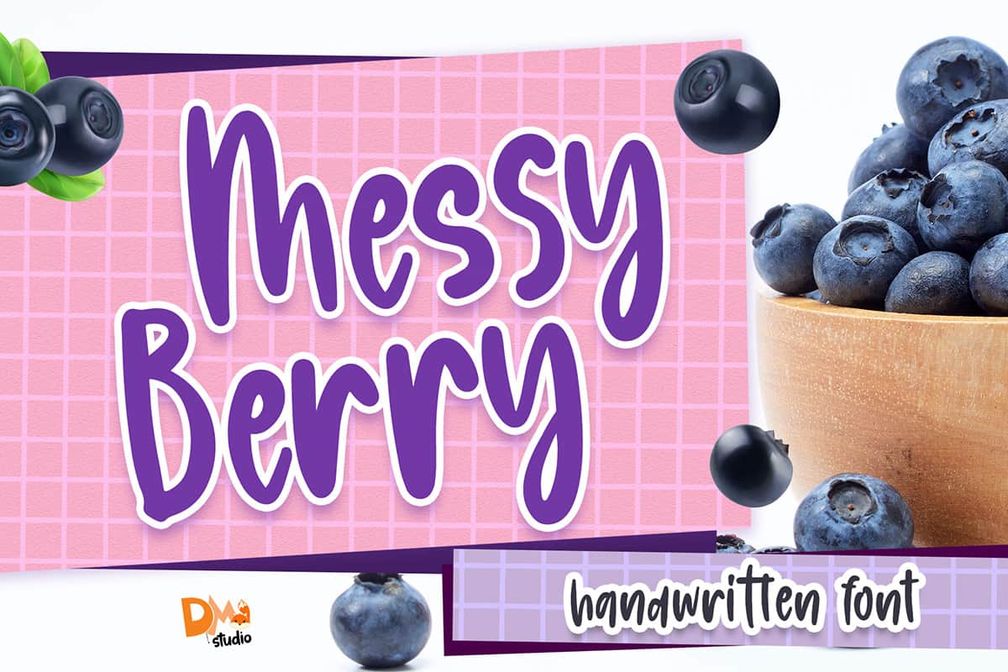
Messy Berry – Handwritten Font
The Messy Berry Handwritten Font is a charming and playful typeface that captures the free-spirited and organic qualities of natural handwriting. With its messy and spontaneous letterforms, this font adds a touch of creativity and personality to your designs, making it perfect for journals, posters, crafts, social media graphics, and other artistic projects.
1. Playful and Creative Style: The Messy Berry Font exudes a fun and artistic aesthetic. Its messy and handwritten letterforms evoke a sense of creativity and individuality, creating a delightful and expressive look for your designs.
2. Handcrafted Appeal: The font emulates the authenticity and imperfections of hand-drawn lettering, adding a personal touch to your designs. It celebrates the art of messy handwriting, giving your typography a unique and handcrafted feel.
3. Versatile Application: This font is versatile and well-suited for various design projects that aim to evoke a sense of creativity and artistic expression. Use it in journals, posters, crafts, branding, social media graphics, and more to add a touch of personality and spontaneity to your designs.
4. Uppercase and Lowercase Letters: The font includes both uppercase and lowercase letters, providing flexibility and creative freedom in your designs. Mix and match the cases to create visually appealing and balanced typography.
5. Ligatures : The Messy Berry Font offers a variety of ligatures characters that enhance the visual interest of your text. These special glyphs create unique connections between letters and alternate forms, allowing you to create artistic and captivating typography.
6. Punctuation and Symbols: In addition to the alphabet, the Messy Berry Font includes a comprehensive set of punctuation marks, numerals, and common symbols. This ensures consistency and ease of use when incorporating the font into your design projects.
Unleash your creativity with the Messy Berry Handwritten Font. Let its messy and spontaneous letterforms bring a touch of playfulness and artistic expression to your journals, posters, and crafts. Embrace the beauty of imperfection and create designs that celebrate individuality and creativity.